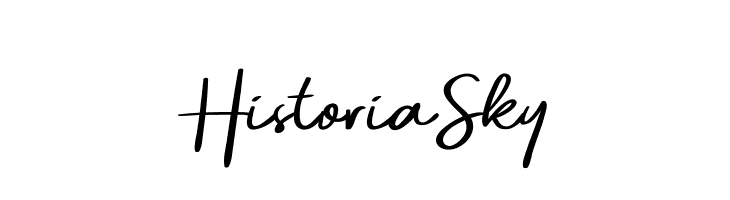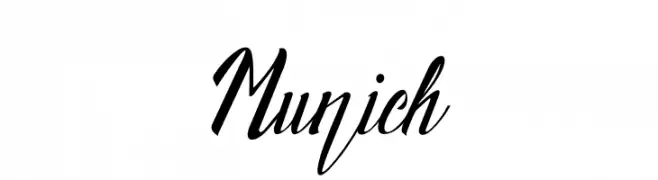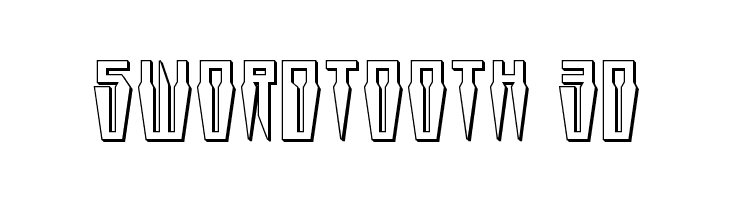
A dynamic and elegant script font with fluid, cursive strokes.
A bold, geometric font with a futuristic, tech-inspired design.
A playful, hand-drawn font with a modern, informal style.
A geometric, modern font with a hollow, outlined style and sharp angles.
A bold, brush-style font with dynamic and expressive strokes.
A dynamic cursive script with sweeping, connected strokes.
A modern, italic font with rounded edges and consistent stroke thickness.
A playful font with letters inside basketball hoops, perfect for sports themes.
A high-contrast, elegant font with sharp serifs and modern styling.
A graceful and ornate script font with flowing, cursive letterforms.